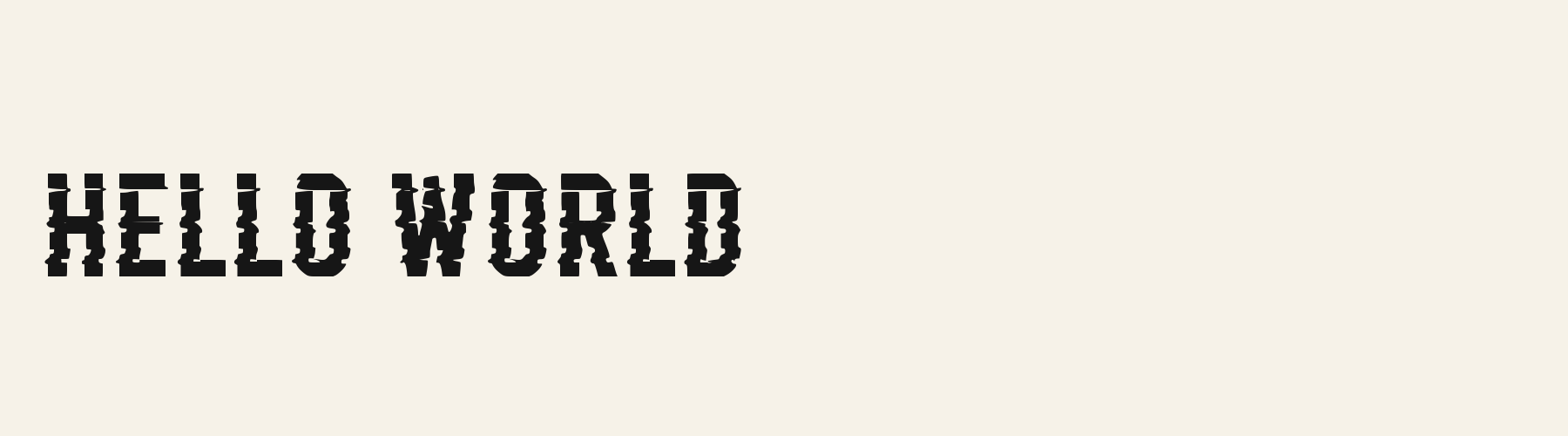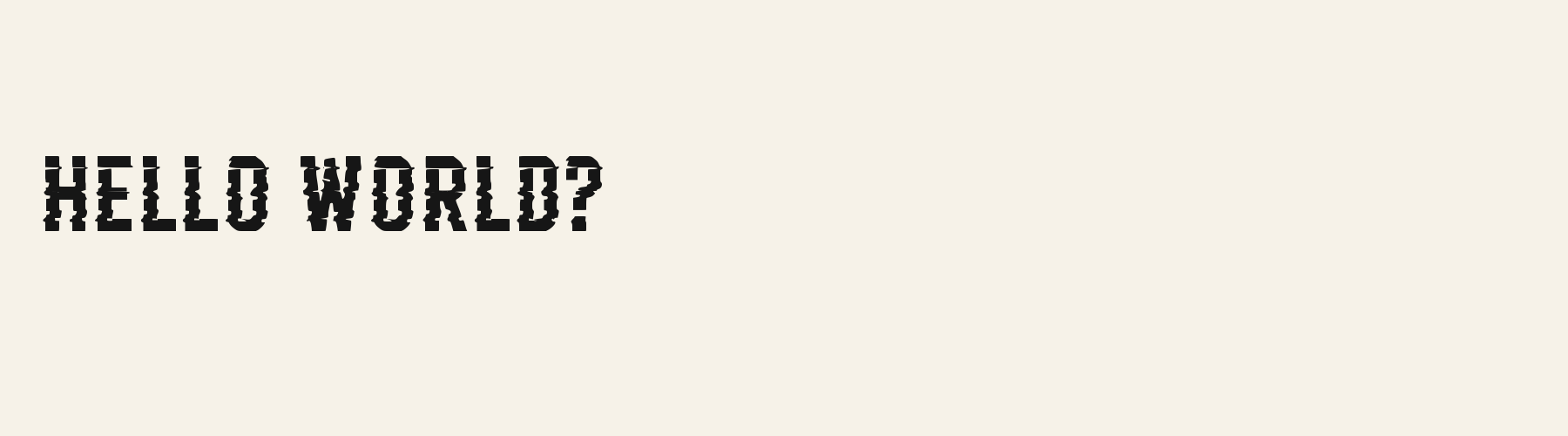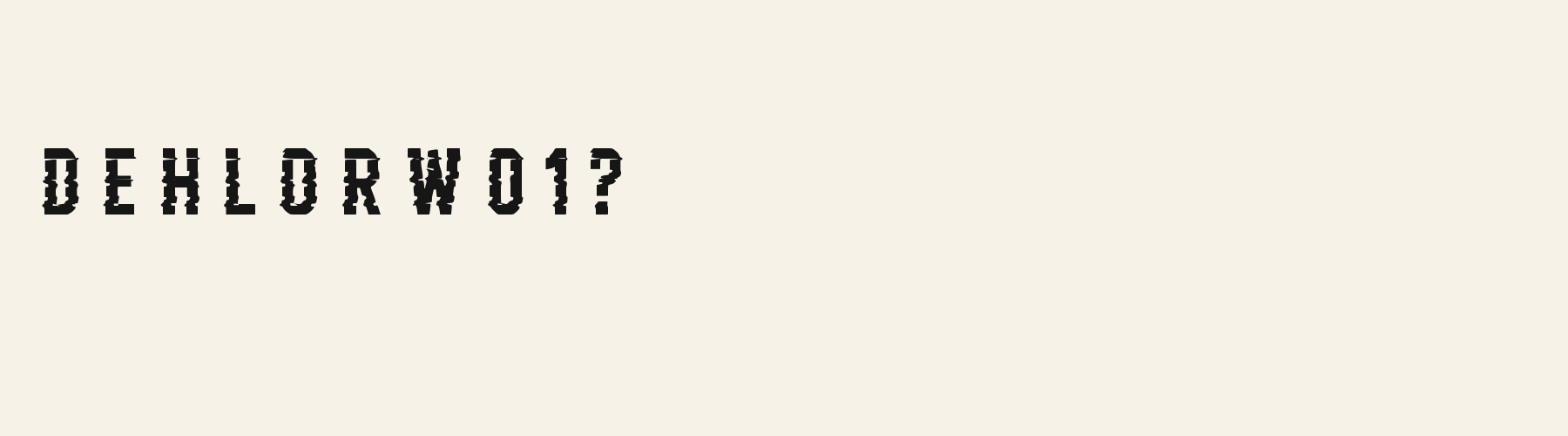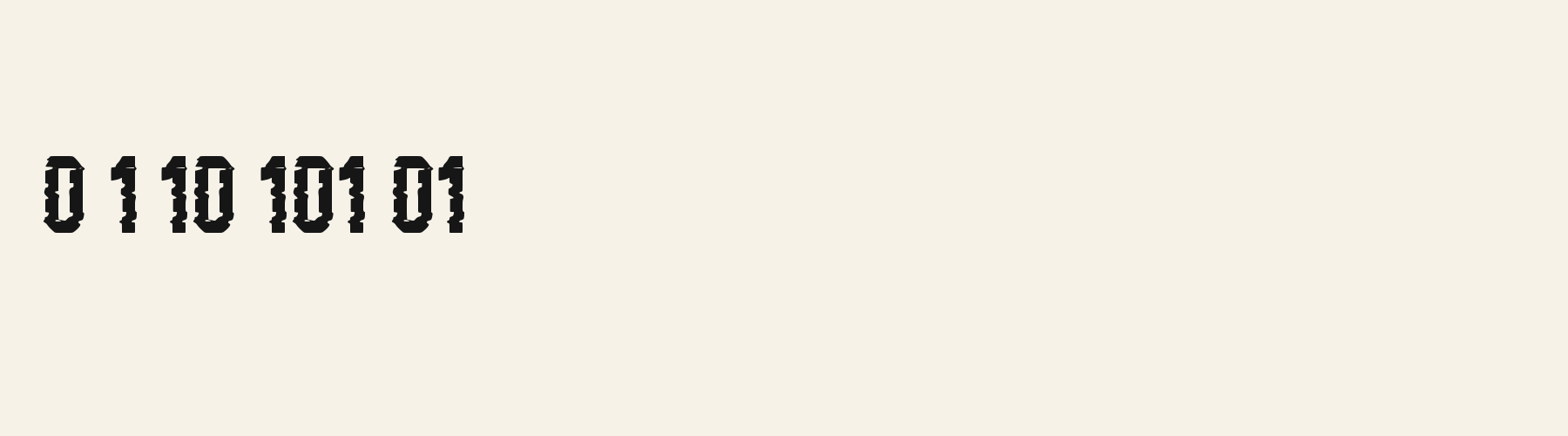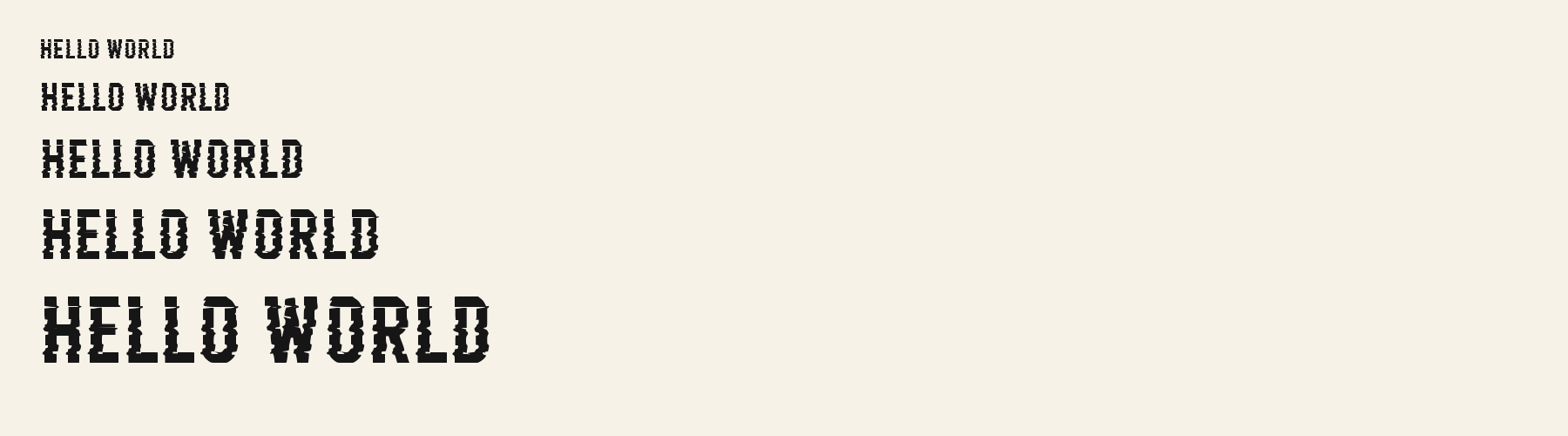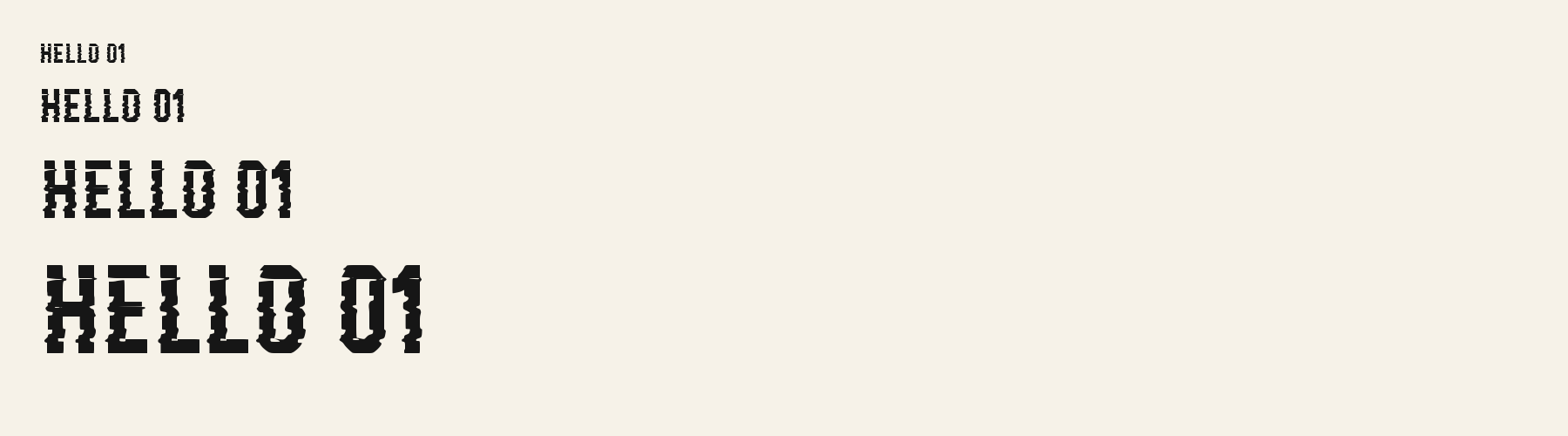
Static Ruin Grotesk Chipped Midline Slab Font
Static Ruin Grotesk combines narrow, heavy capitals with squared feet and chipped edges that repeatedly interrupt the letters around their middle.
Chipped Midline Slab Letterforms
Static Ruin Grotesk combines narrow, heavy capitals with squared feet and chipped edges that repeatedly interrupt the letters around their middle. The H keeps a thick crossbar between upright stems, while small bites and projecting fragments roughen its sides. The O has clipped outer corners and a tall, narrow counter whose edges wobble inward. The R carries a compact bowl above a forceful diagonal leg, with an uneven junction adding to the fractured outline. Broad, nearly even strokes keep the black shapes substantial despite the cuts. The result feels battered and stern, with a compact rhythm that gives short wording a gritty presence.
Inspect repeated Latin capitals, especially the narrow counters in O and the crowded cuts in W, using your actual wording. Compare larger and smaller previews for lost chips or closing gaps. Check lowercase, accents and any other required scripts separately; these specimens establish only the displayed uppercase forms.
Try this face for the main heading, with a plain sans serif for supporting text and labels. Its chipped outlines already supply considerable texture, so a companion with smooth contours could give secondary information a visibly calmer role.
Static Ruin Grotesk: letterforms and layout
Compare the original spacing with a wider setting. Watch how the repeated L shapes and broad W distribute the dark strokes, and whether extra space separates the chipped silhouettes more than your composition needs.
In this uppercase phrase, Static Ruin Grotesk has narrow, blocky letters with squared feet and repeated chips across their sides. The angular O and jagged W give the line a rough, compressed rhythm suited to a gritty title.
AFTER HOURS
Poster. Heavy capitals and repeated edge chips give an event title a rough texture against a plain poster background. BROKEN SIGNAL
Book or album cover. Narrow letterforms and fractured outlines suit a stark album cover with room around its main title. HOLD YOUR GROUND
T-shirt print. Squared feet and dense black strokes give a short shirt slogan a firm, visibly battered character.
About Static Ruin Grotesk
Its lowercase sits low: the x-height is 68.9% of the cap height, where the median for decorative fonts is 74.4%, lower than 35 of the 36 other decorative fonts. Ascenders on b, d, h, k and l line up with the capitals (100% of their height), and descenders on g, j, p, q and y drop 22.4% of the cap height below the baseline, shallower than 20 of the 36 other decorative fonts. Static Ruin Grotesk runs 21.9% narrower than the median for decorative fonts: an average lowercase letter, spacing included, is 59.4% as wide as the capitals are tall (an average capital, 67.2%). The o is an upright oval, 0.76 times as wide as it is tall, and W is the widest capital, at 1.37 times the width of H. O stands exactly as tall as H and sits on the baseline, with no overshoot.
The letters stand upright, leaning less than 2.5° either way. Vertical stems measure 16% of the cap height, heavier than 16 of the 23 other decorative fonts. Ink covers 42.6% of each lowercase letter's box (its advance width by the cap height), darker than 33 of the 36 other decorative fonts. It is close to monoline, with the sides of o and O 1.14 times as thick as their tops and bottoms.
Its 345 characters include 245 Latin letters, plus 100 figures, punctuation marks and symbols; 193 of the Latin letters are accented or special forms beyond A to Z. The word space measures 27.5% of the cap height, and the blank space either side of a lowercase letter takes up 15% of its width. Spacing is adjusted with 10,920 kerning pairs, the most of all 37 decorative fonts. The tightest of them is PJ, which closes up by 19.1% of the cap height. The figures have different widths, so columns of numbers set in Static Ruin Grotesk will not line up exactly.